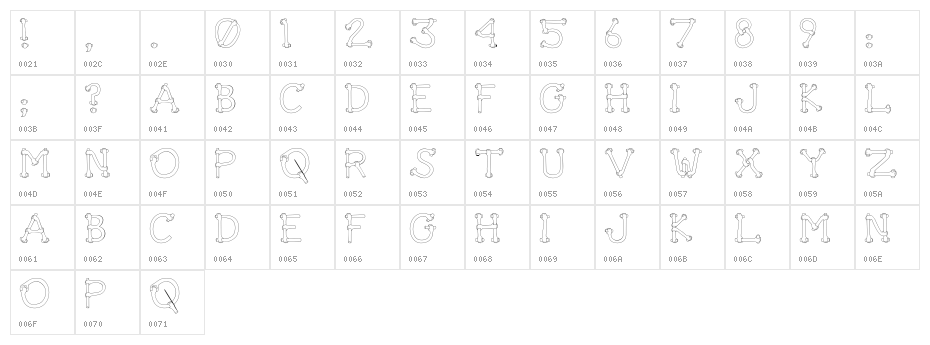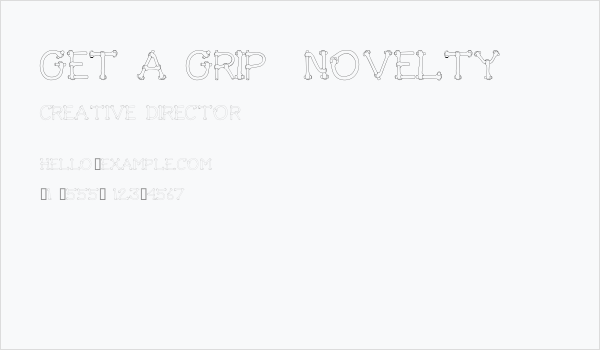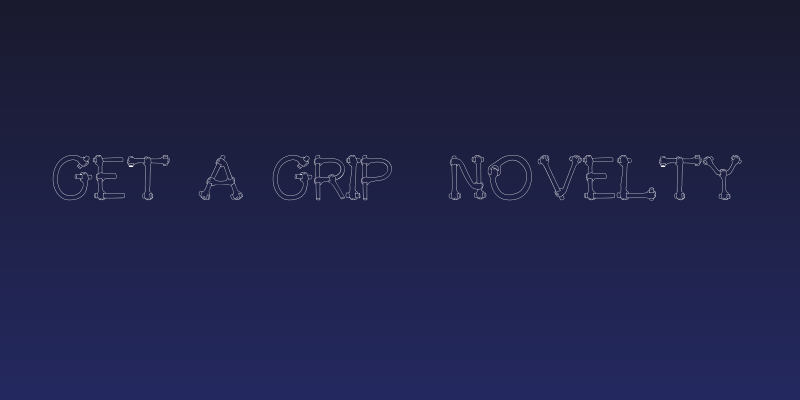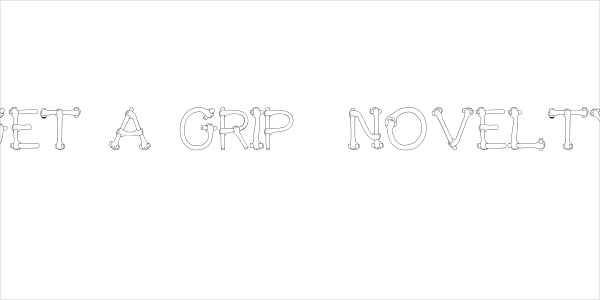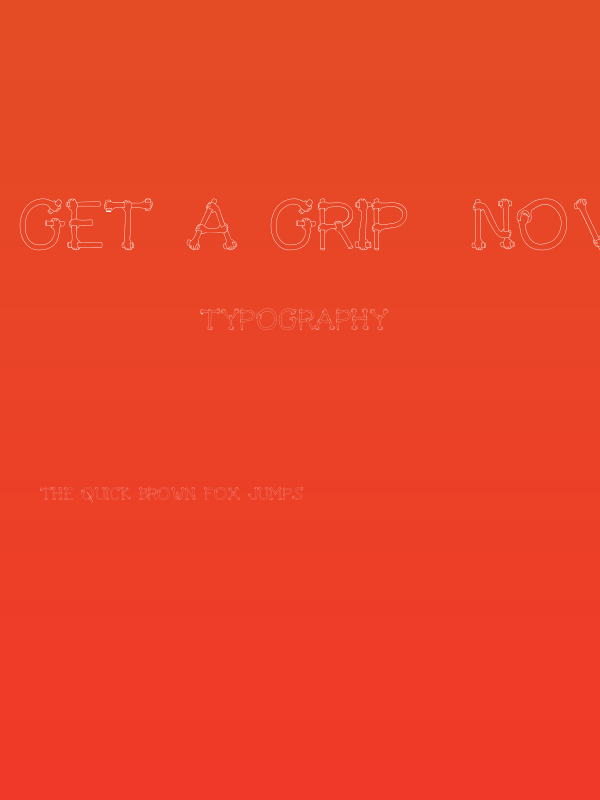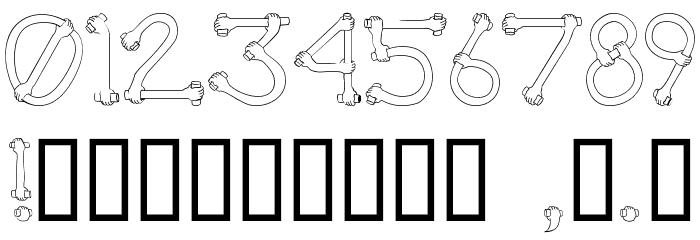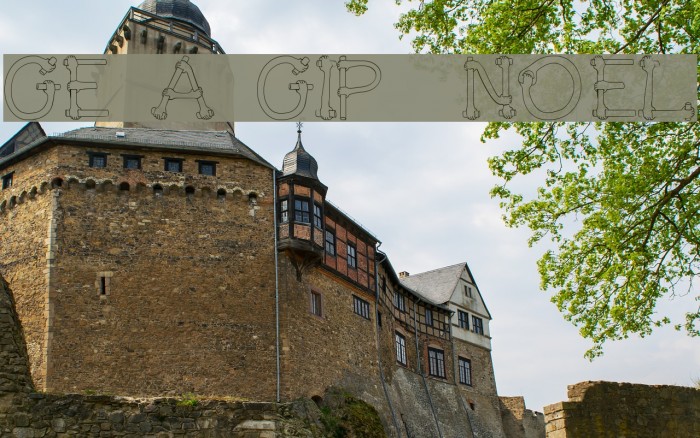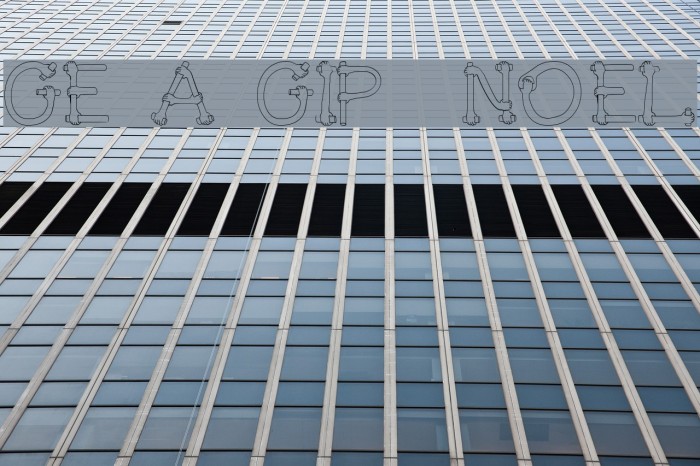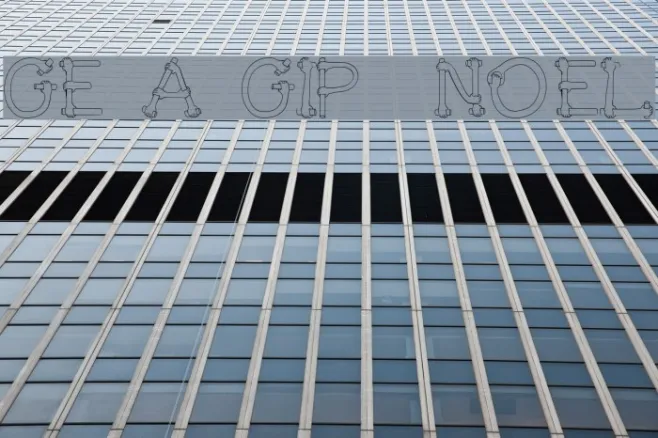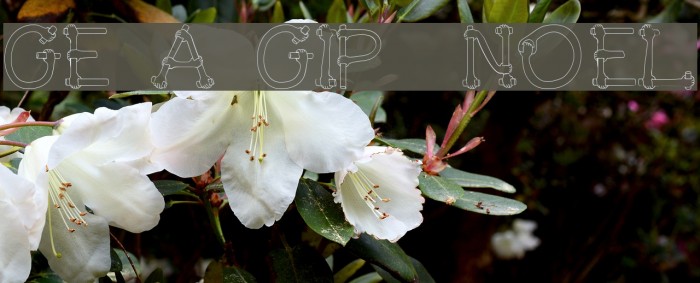
Get A Grip Novelty Font
Get A Grip Novelty Description
This font features a playful and whimsical design, with each character formed by a series of interconnected bones, giving it a skeletal appearance. The letters are uppercase and lowercase, with numbers and a selection of special characters. The strokes are consistent in thickness, creating a uniform look across all characters. The font's unique style makes it stand out, with each letter having a distinct personality due to the bone-like structure. This design is perfect for projects that require a touch of humor or a spooky theme, such as Halloween invitations or novelty items.
| Overall Style | Novelty, Playful |
| Proposed Projects | Ideal for Halloween-themed designs, novelty items, party invitations, and children's books. |